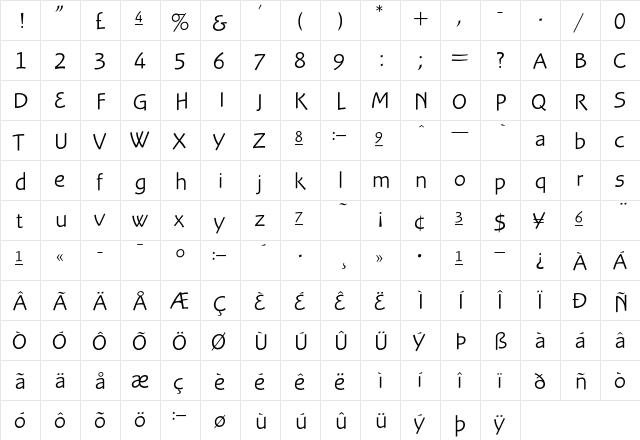
Lebensjoy Regular
Design Context for Lebensjoy Typeface
Lebensjoy offers clean, dependable letterforms without strong stylistic allegiance, making it a practical choice for designers who need flexibility.
Pro Tip: Use Lebensjoy in both headline and body roles to test its range before committing to a single application.